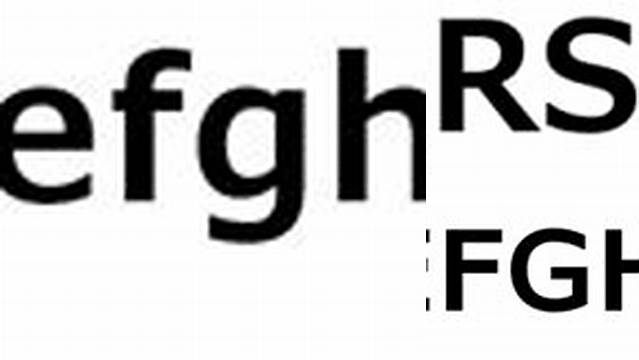
Hey guys, are you ready to dive into the world of fonts and discover a real gem? We're talking about the Verdana Pro Semibold font, a versatile typeface that's perfect for a whole bunch of design projects. And the best part? You can get a Verdana Pro Semibold font free download! In this article, we'll explore everything you need to know about this fantastic font, including where to download it, how to use it, and why it's such a popular choice among designers. So, buckle up and let's get started! This is going to be fun, I promise.
What Makes Verdana Pro Semibold Font So Special?
Alright, let's talk about what makes the Verdana Pro Semibold font stand out from the crowd. First off, it's a part of the Verdana font family, which is known for its excellent readability, especially on screens. The semibold weight adds a touch of boldness, making it perfect for headings, subheadings, and any text that needs to grab your attention. But that's not all, the Verdana Pro Semibold font is also incredibly versatile. It works well in a wide range of applications, from websites and apps to print materials like brochures and posters. Its clean, modern design makes it a great choice for both professional and personal projects. It's like a secret weapon in your design arsenal, giving you the power to create visually appealing and effective designs. The font's design is optimized for clear display at smaller sizes. This makes it ideal for body text in digital formats where legibility is paramount. Think of it as the superhero of fonts, always ready to swoop in and save the day! Plus, the availability of a Verdana Pro Semibold font free download makes it accessible to everyone, regardless of their budget. You don't have to be a design guru to use this font; its simplicity and elegance make it easy to incorporate into your projects. It's like having a top-tier designer at your fingertips, ready to elevate your work. The subtle variations in the letterforms create a balanced and harmonious appearance, ensuring that your text is both readable and aesthetically pleasing.
Another key feature is its consistent appearance across different platforms and devices. This is essential for maintaining a professional look in your designs, regardless of how they're viewed. The font's neutral style ensures it complements rather than competes with other design elements, making it incredibly flexible. Whether you're designing a website, creating a presentation, or working on a print project, the Verdana Pro Semibold font will fit right in. It's a workhorse font that gets the job done, time and time again. Its subtle elegance adds a touch of sophistication without being overpowering, and its timeless design means it will never go out of style. Verdana Pro Semibold font is not just a font; it's an investment in your design's success. It's like the trusty sidekick that's always there to support your creative vision. It also works well with other fonts, which means you can create designs that are both diverse and visually interesting. This can be important for maintaining your audience's attention and showcasing your design skills. The ability to combine different fonts will enhance your designs, making them more memorable and creative. So, if you want to create designs that look great and communicate effectively, the Verdana Pro Semibold font is a top-tier choice. Trust me, you won't regret adding this font to your collection. It is a game-changer, ready to help you bring your ideas to life.
How to Use the Verdana Pro Semibold Font in Your Designs
Okay, so you've got your Verdana Pro Semibold font free download – now what? Let's talk about how to actually use it in your designs. First off, think about where it will fit best. The semibold weight makes it perfect for headings, subheadings, and any text that needs to stand out. However, you can also use it for body text, especially when you want a slightly bolder look. Experiment to find the right balance for your project. Try mixing the Verdana Pro Semibold font with other fonts to create contrast and visual interest. Combining a bold headline with a more delicate body font is a classic technique. This can also enhance readability, which is important for keeping your audience engaged. Make sure to choose font combinations that complement each other and match the overall tone of your design. You can also play with different font sizes, styles, and weights to achieve different effects. Varying the text presentation is essential for creating visually appealing designs. For websites, ensure the Verdana Pro Semibold font is web-safe. This means that most users will have it installed on their computers, so they will render correctly. If it isn't web-safe, you might need to use web fonts, which are hosted on a server and downloaded by the user's browser. This could slow down your website's loading time if you're not careful, so make sure your website is optimized for font use. When using the Verdana Pro Semibold font in print, ensure it is properly embedded in your document. This will prevent the font from being substituted when the document is opened on a different computer. Always check your design software's options to make sure the font is embedded before sending your design to the printer. For branding and logos, Verdana Pro Semibold font can be a great choice, offering a clean and professional look. It works well for both formal and informal brands. When creating a logo, consider the font's characteristics and whether they align with your brand's personality. Adjust the letter spacing (kerning) to improve the visual appearance of your text, especially in headlines and logos. This will ensure your text is aesthetically appealing. Remember, the key is to experiment and find what works best for your specific project. Don't be afraid to try different combinations and see what you like. In the end, the best design is the one that effectively communicates your message and captures your audience's attention.
Tips and Tricks for Utilizing the Verdana Pro Semibold Font Effectively
Alright, let's get into some pro tips to help you get the most out of your Verdana Pro Semibold font free download. First off, always consider the context. Where will your design be seen? On a website? In print? Knowing the platform will influence how you use the font. For digital use, make sure your font size is large enough for readability. This is even more crucial if you're targeting an older audience. The Verdana Pro Semibold font is quite legible, but you still want to avoid straining your viewers' eyes. With print designs, choose the appropriate point size for the font based on the size of your document and the distance at which the text will be viewed. This will make your text much more readable. Another tip is to pay attention to leading (line spacing) and kerning (letter spacing). Adjusting these can significantly improve the readability and appearance of your text. Also, don't be afraid to play around with the font's weight. While semibold is a great choice for headings, try other weights to create contrast and visual interest. Be careful not to overuse the bold weight. It's effective in moderation, but too much can be overwhelming. For websites, always use the font's web-safe version to ensure proper rendering across different browsers and devices. If you're using a web font, make sure it's optimized for fast loading times. You should test your design across multiple devices and screen sizes to ensure it looks consistent. This way, you will create an appealing design that reaches all audiences. Make sure to follow best practices for web design, like using appropriate contrast between text and background colors, to ensure your text is easy to read. And lastly, always proofread your text before finalizing your design. Nothing is more embarrassing than a typo in your headline! Review the copy carefully to ensure accuracy and professional appearance. Proper proofreading is key to presenting a polished, professional appearance. By following these tips, you'll be well on your way to creating stunning designs with the Verdana Pro Semibold font. Remember, it's a powerful tool, so use it wisely!
Common Questions About Verdana Pro Semibold Font
Let's clear up some common questions about the Verdana Pro Semibold font, shall we?
Q: Is the Verdana Pro Semibold font suitable for websites? A: Absolutely! The Verdana Pro Semibold font is highly readable on screens, making it a great choice for websites. It's a very versatile font, which works in several cases.
Q: What is the difference between Verdana and Verdana Pro? A: Verdana Pro is an extended version of the original Verdana font with added characters and glyphs, including support for more languages. The Verdana Pro Semibold font offers more comprehensive character support than the original, making it a better choice for projects that require broader language coverage.
Final Thoughts on Verdana Pro Semibold Font
So, there you have it, guys! The Verdana Pro Semibold font is a fantastic choice for any design project, offering readability, versatility, and a touch of boldness. With the availability of a Verdana Pro Semibold font free download, it's accessible to everyone. Remember to always respect the licensing terms and use the font responsibly. Now, go out there and create some amazing designs! Using the Verdana Pro Semibold font is a smart move, offering a perfect blend of elegance and usability that will impress anyone. It's like having a superpower at your disposal, enabling you to create outstanding visuals. If you're looking for a reliable, stylish font that won't let you down, the Verdana Pro Semibold font is your go-to choice. Happy designing!